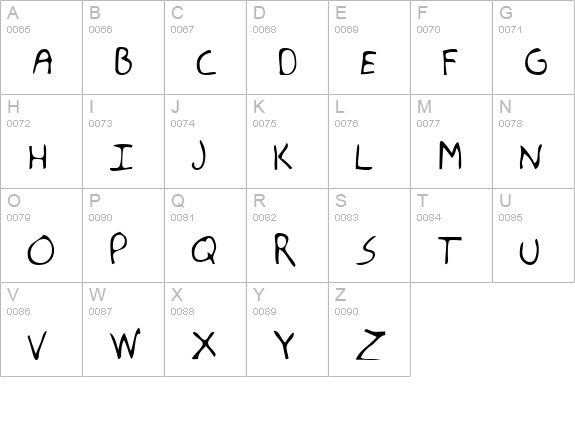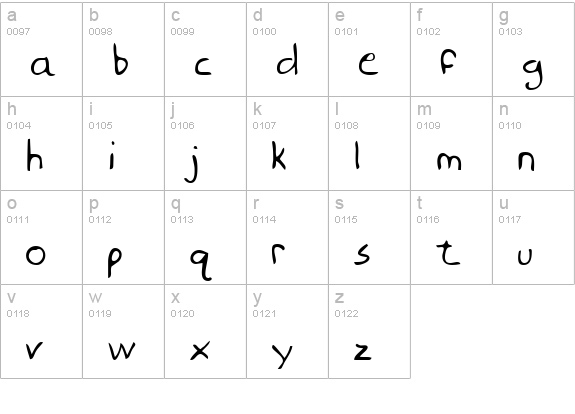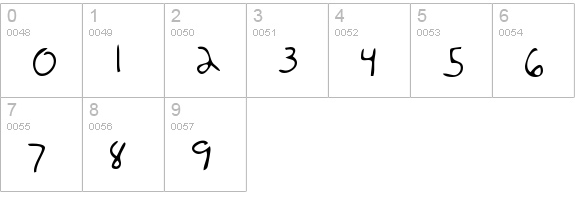
LawfordsHand Regular Font Details
LawfordsHand Regular is the standard, neutral variant in the LawfordsHand typeface family \xE2\x80\x94 well suited to general body text, paragraphs, and standard typographic work.
Introducing LawfordsHand Regular, a charming and versatile font that captures the essence of elegant handwriting. With its graceful curves and delicate strokes, this typeface adds a touch of sophistication to any project. LawfordsHand Regular is perfect for a wide range of design applications, from formal invitations and wedding stationery to branding materials and product packaging. Its classic yet contemporary style makes it suitable for both traditional and modern designs, allowing you to effortlessly convey a sense of elegance and refinement. One of the standout features of LawfordsHand Regular is its exceptional legibility, ensuring that your message is conveyed with clarity and precision. Each letter is meticulously crafted to create a harmonious flow, resulting in a visually pleasing and easily readable typeface. And the best part? LawfordsHand Regular is freely available to download at FontsMarket.com. Whether you're a professional designer or a casual enthusiast, you can now enjoy the beauty and versatility of this font without breaking the bank. Simply visit FontsMarket.com, and with just a few clicks, you'll have access to this stunning typeface at no cost. Don't miss out on the opportunity to elevate your designs with LawfordsHand Regular. Download it today and add a touch of timeless elegance to your next project.